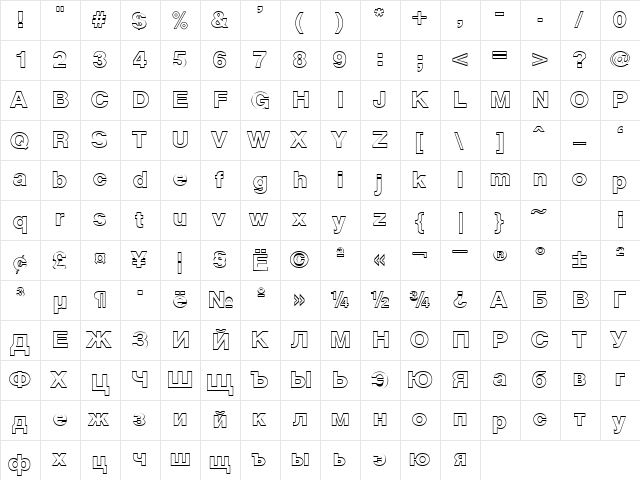
Cyrvetica Extra Outline Normal
Design Context for Cyrvetica Extra Outline Typeface
Cyrvetica Extra Outline is built around its visual character rather than neutral utility — its distinctive forms are designed to make an impression at display sizes.
Font Pairing: Pair with a clean neutral sans-serif for body copy to let Cyrvetica Extra Outline's character lead without overwhelming the composition.
Pro Tip: Use Cyrvetica Extra Outline exclusively at display sizes — it was designed to be seen, not read at length. Let a neutral companion handle body copy.